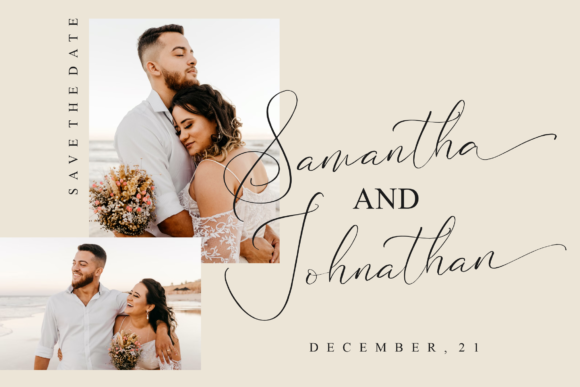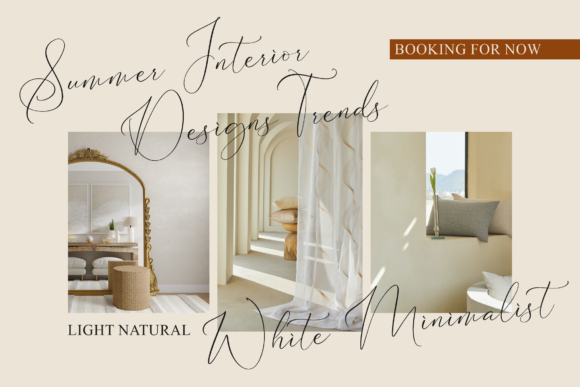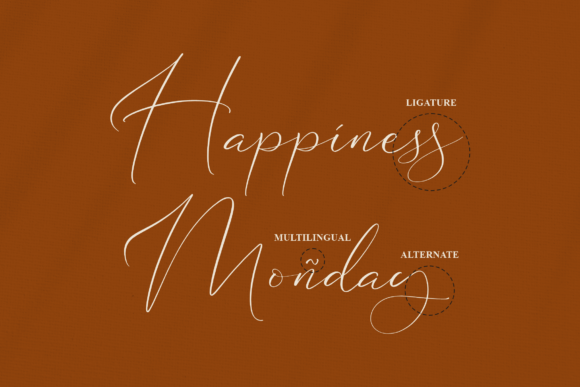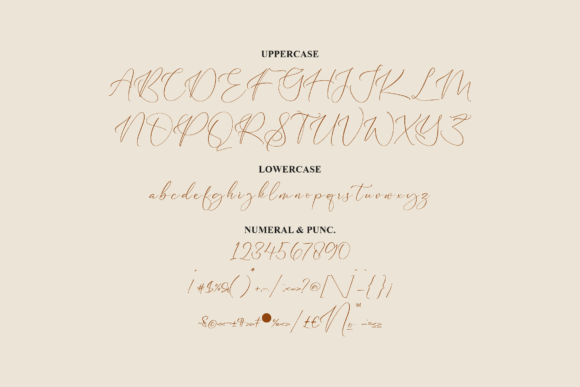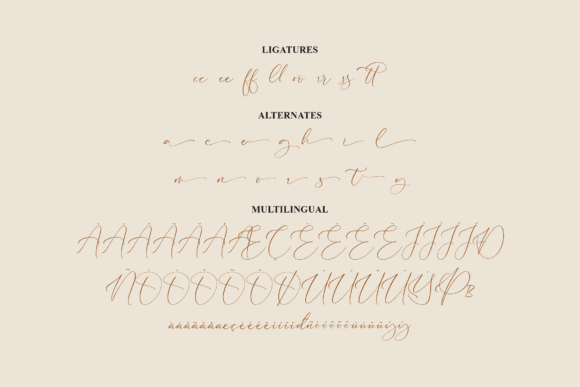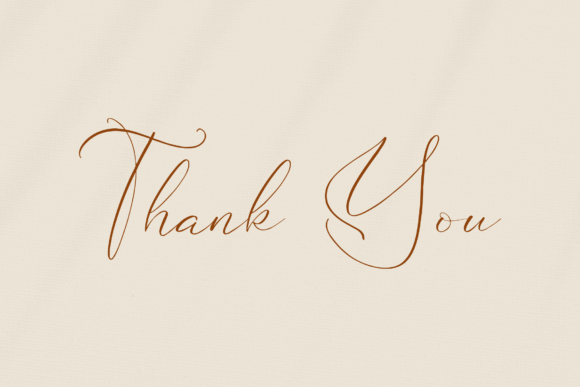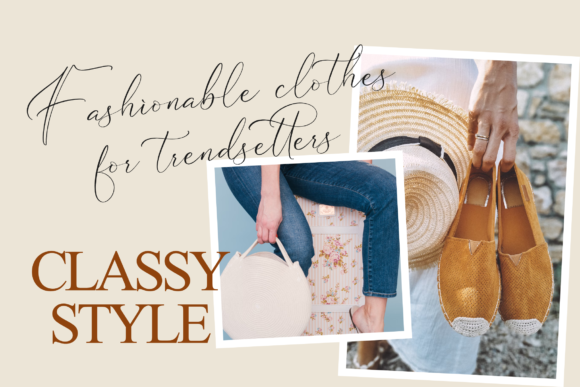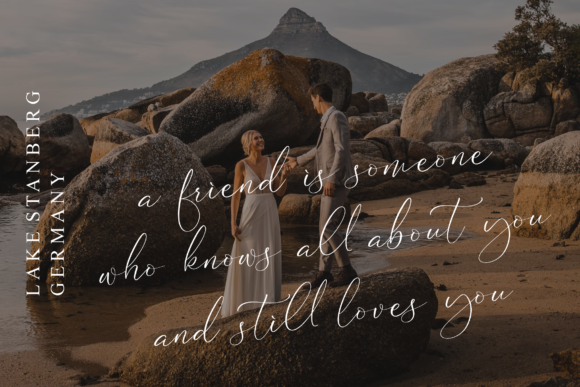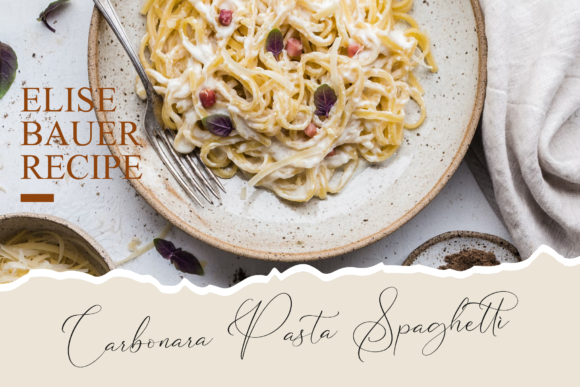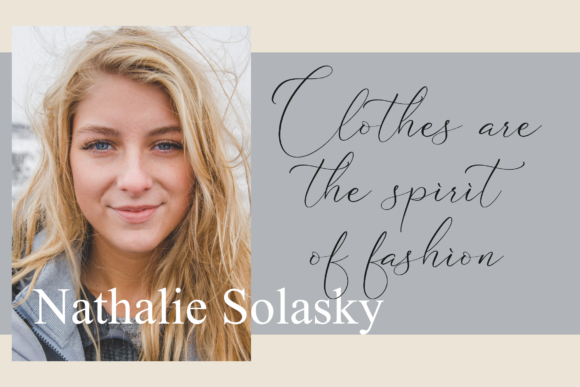
Ranlikha Font
About Ranlikha Font
Ranlikha – Luxury Script Font is a sophisticated typeface suitable for a myriad of creative projects. Its luxurious script style makes it an ideal choice for logos, branding projects, homeware designs, product packaging, mugs, quotes, posters, shopping bags, t-shirts, book covers, name cards, invitation cards, greeting cards, labels, photography, watermarks, special events, and any other projects that require a touch of beautiful script aesthetics.
This font’s versatility shines through in its ability to enhance the elegance and visual appeal of diverse design applications. Whether used for high-end branding or adding a touch of luxury to event invitations, Ranlikha brings a refined script taste to your creative endeavors.
The luxurious and sophisticated nature of Ranlikha makes it a standout choice for projects where an elevated and classy aesthetic is desired. Its script design adds a unique and beautiful touch to your text, ensuring that your designs exude a sense of opulence.
In summary, Ranlikha – Luxury Script Font is more than just a font; it’s a design asset that elevates the visual appeal of your projects. Explore the possibilities and let Ranlikha be the perfect choice for adding a touch of luxury and script elegance to your logos, branding materials, and various other creative ventures.